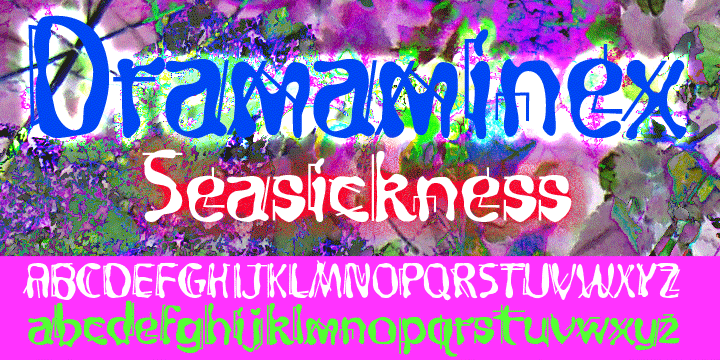
Dramaminex Font Free Download is a dramatic and expressive display typeface designed to add flair and intensity to your creative projects. Perfect for theatrical posters, book covers, branding, and artistic designs, Dramaminex delivers a bold visual punch with its striking letterforms.
Its unique style combines elegance with a touch of chaos, making your headlines and logos impossible to ignore. Whether you’re crafting impactful promotional materials or dynamic digital content, Dramaminex Font Free Download ensures your message stands out with character and emotion.